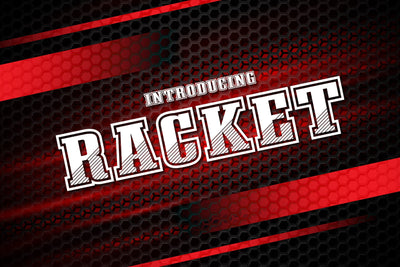
Racket Fonts
Racket Fill is a bold display font with a strong outline and incredibly cool characters. Publications, logos, business cards, or printed on t-shirts, this font will look outstanding in any situation. This font will be an incredible asset to your fonts’ library, as it has the potential to elevate any creation.